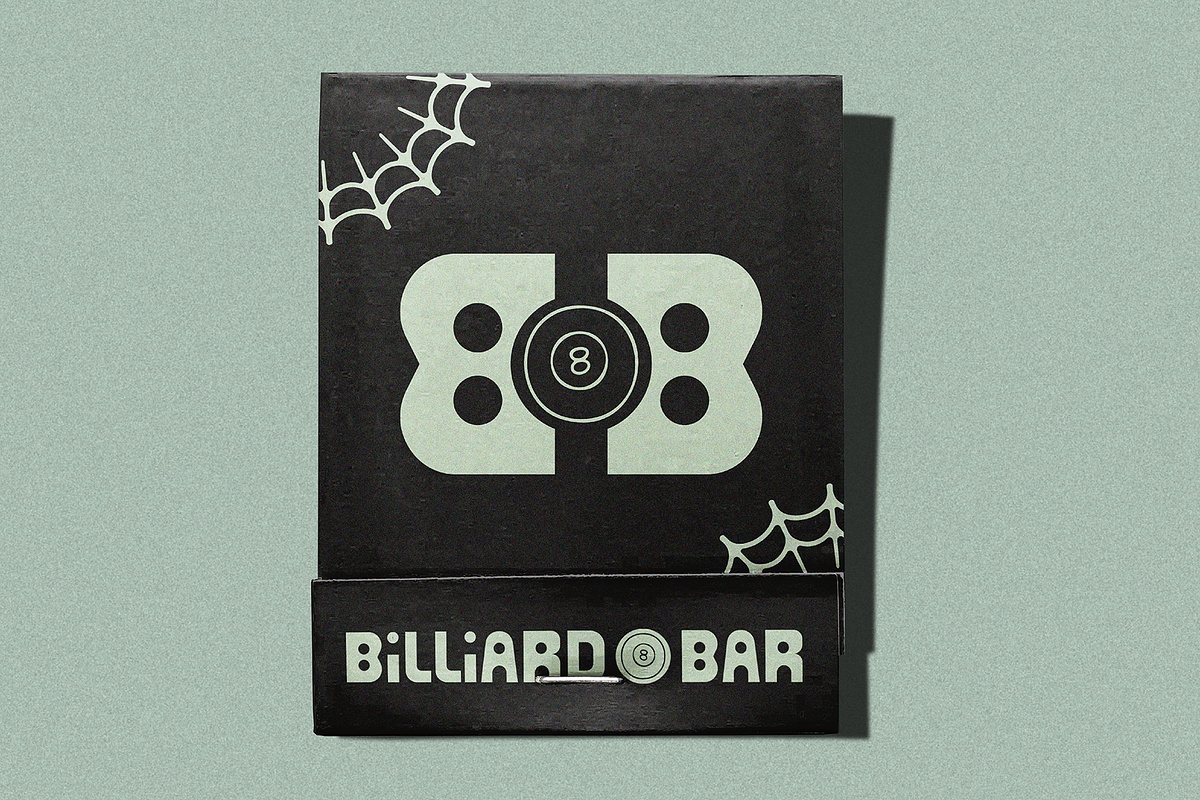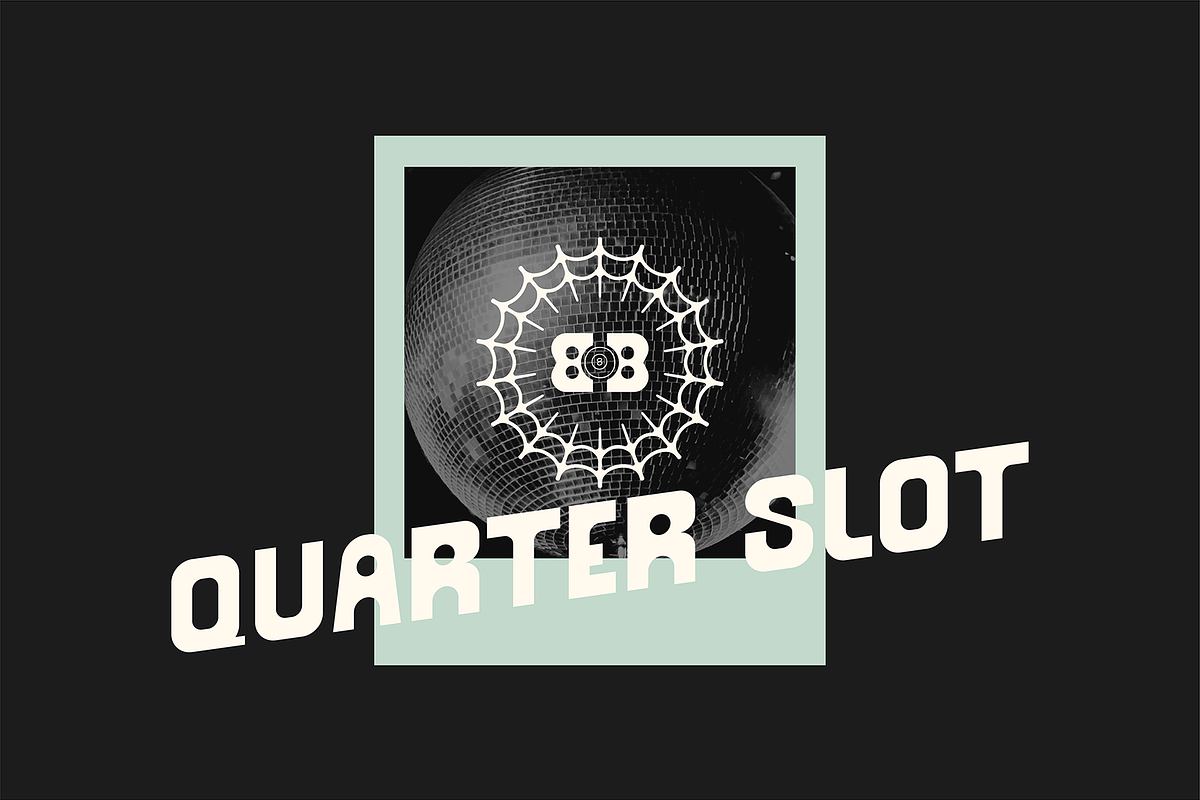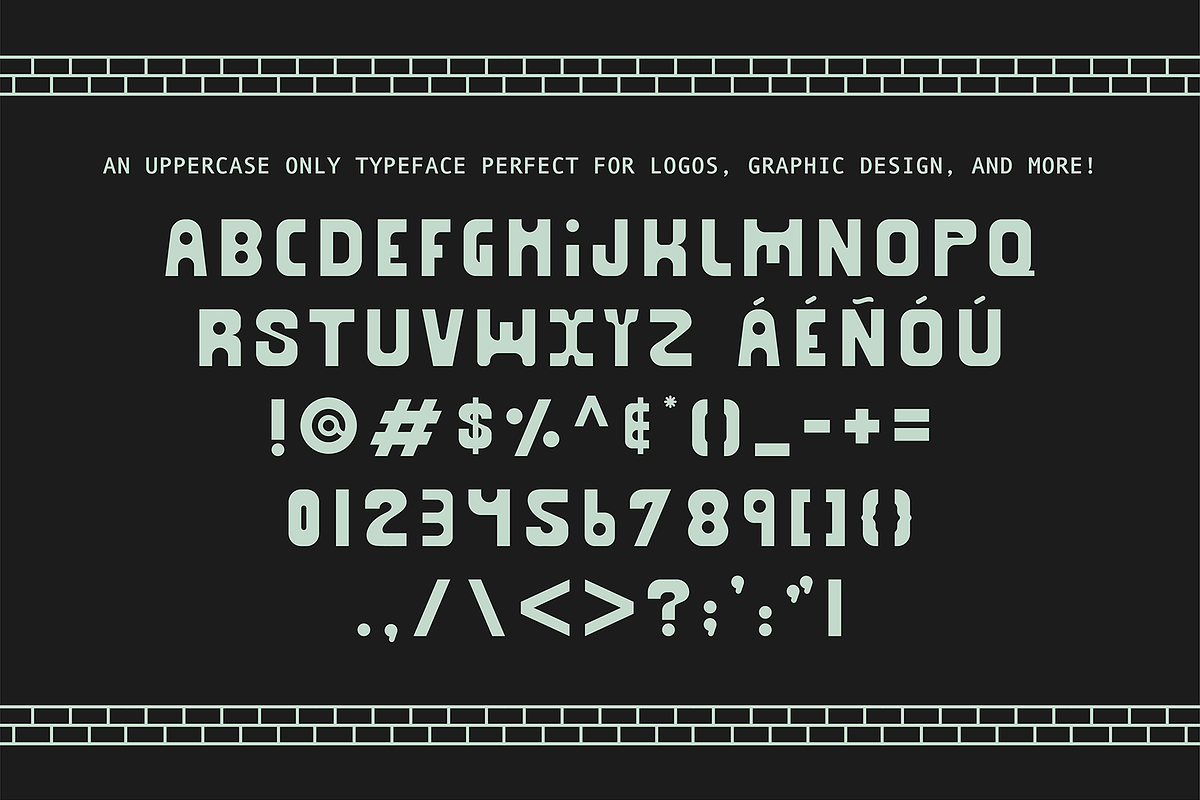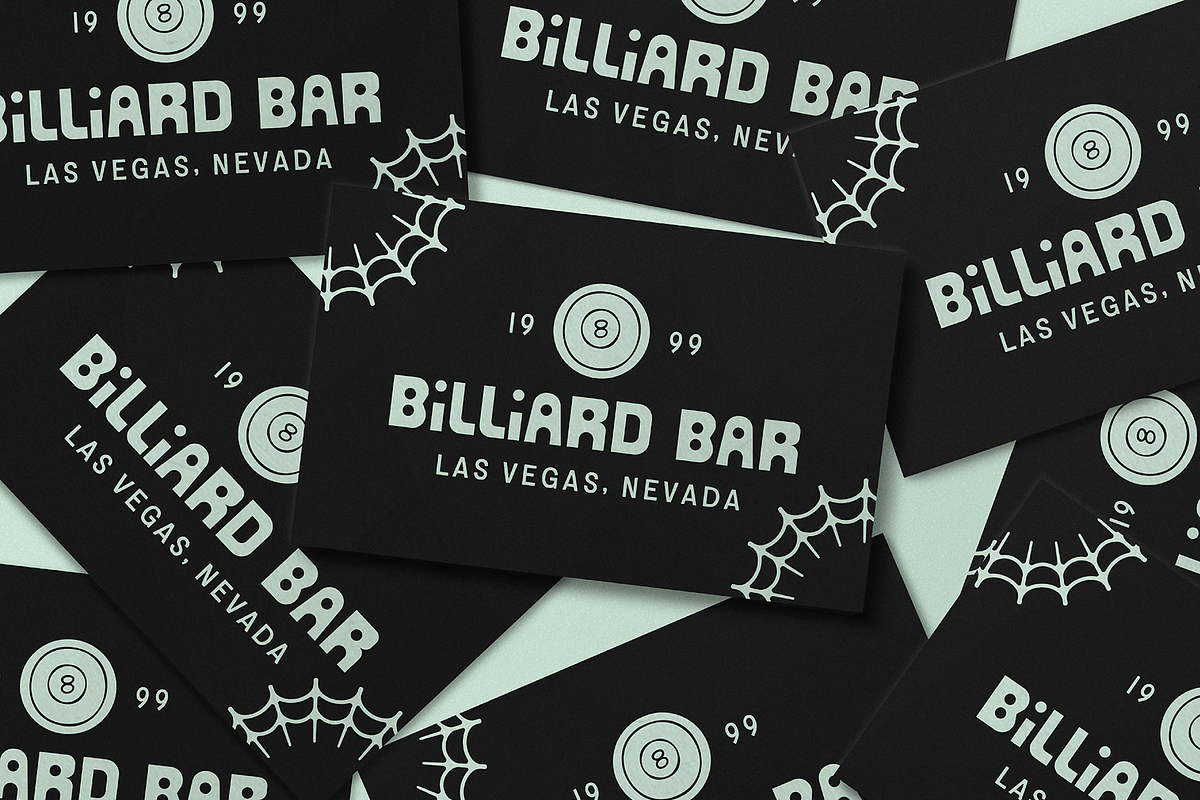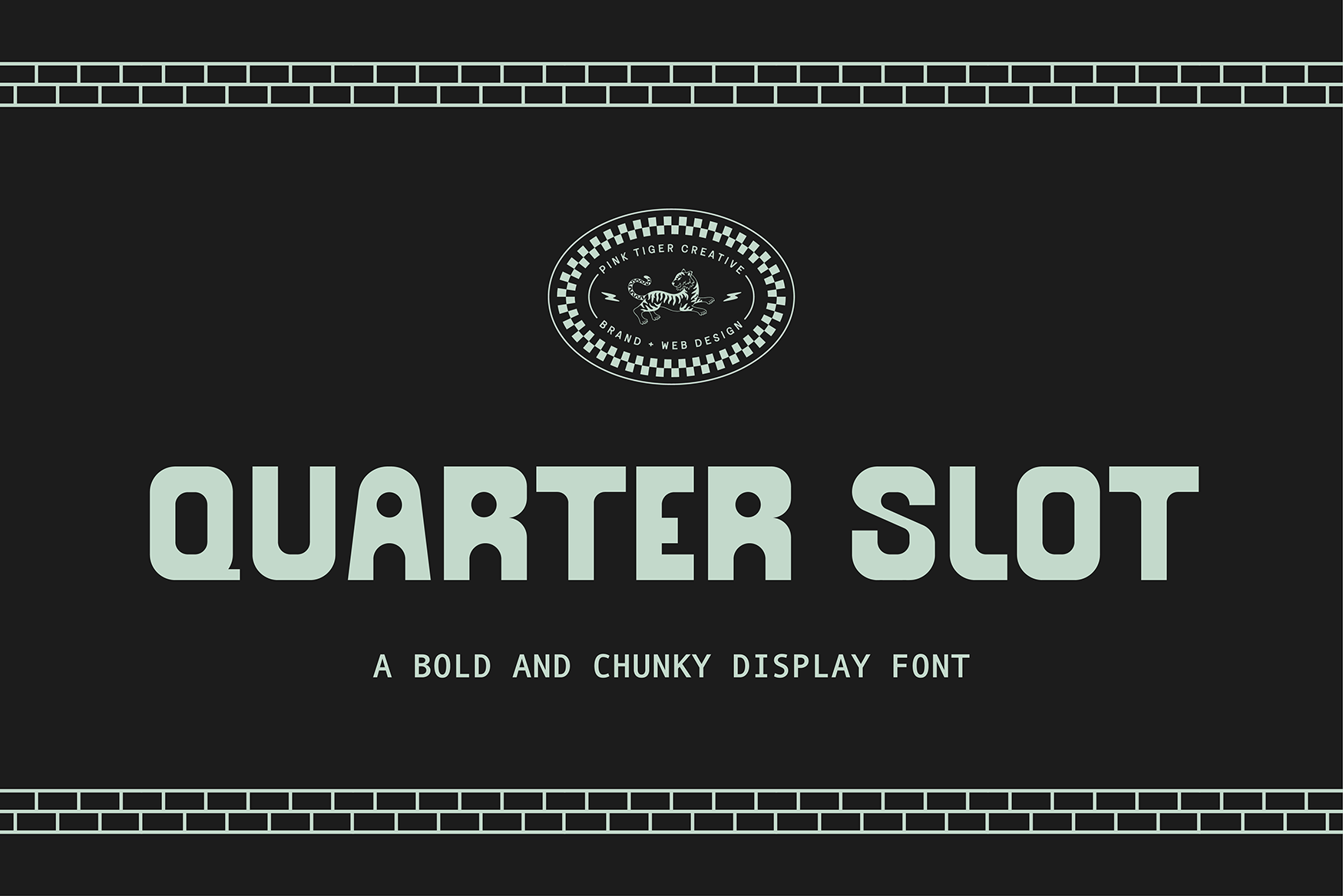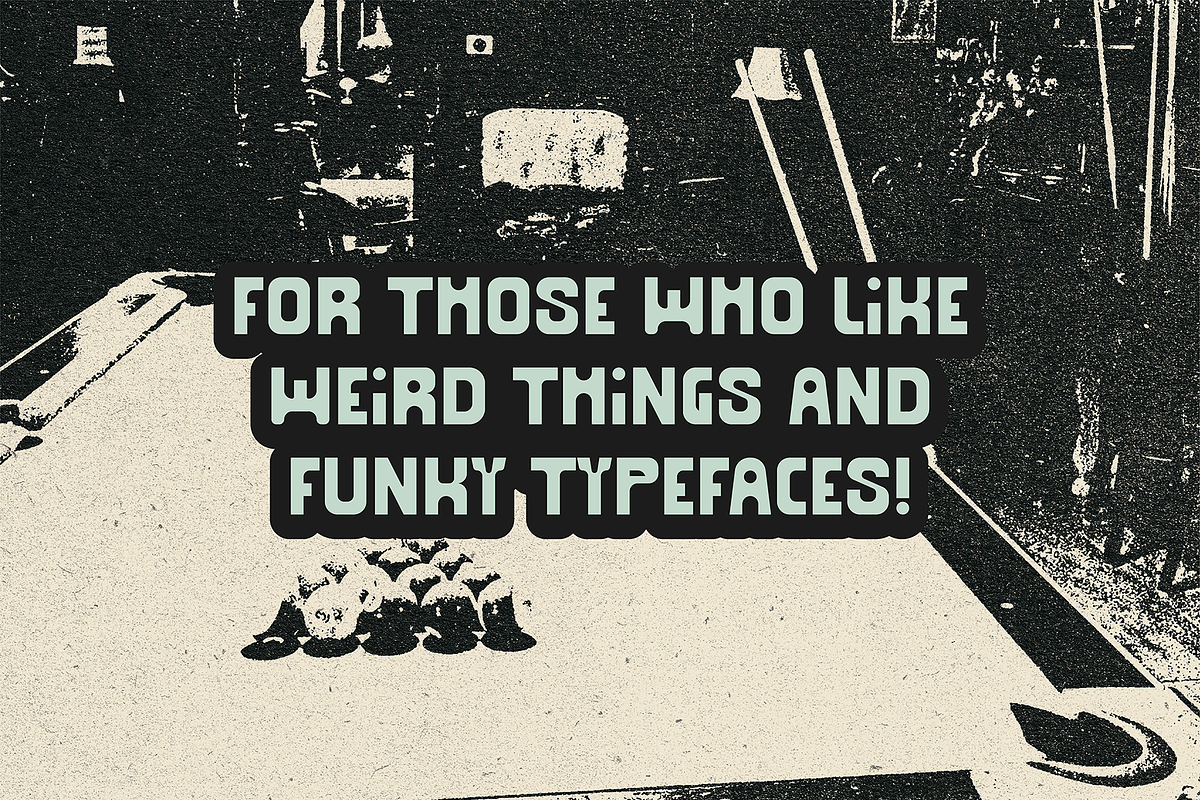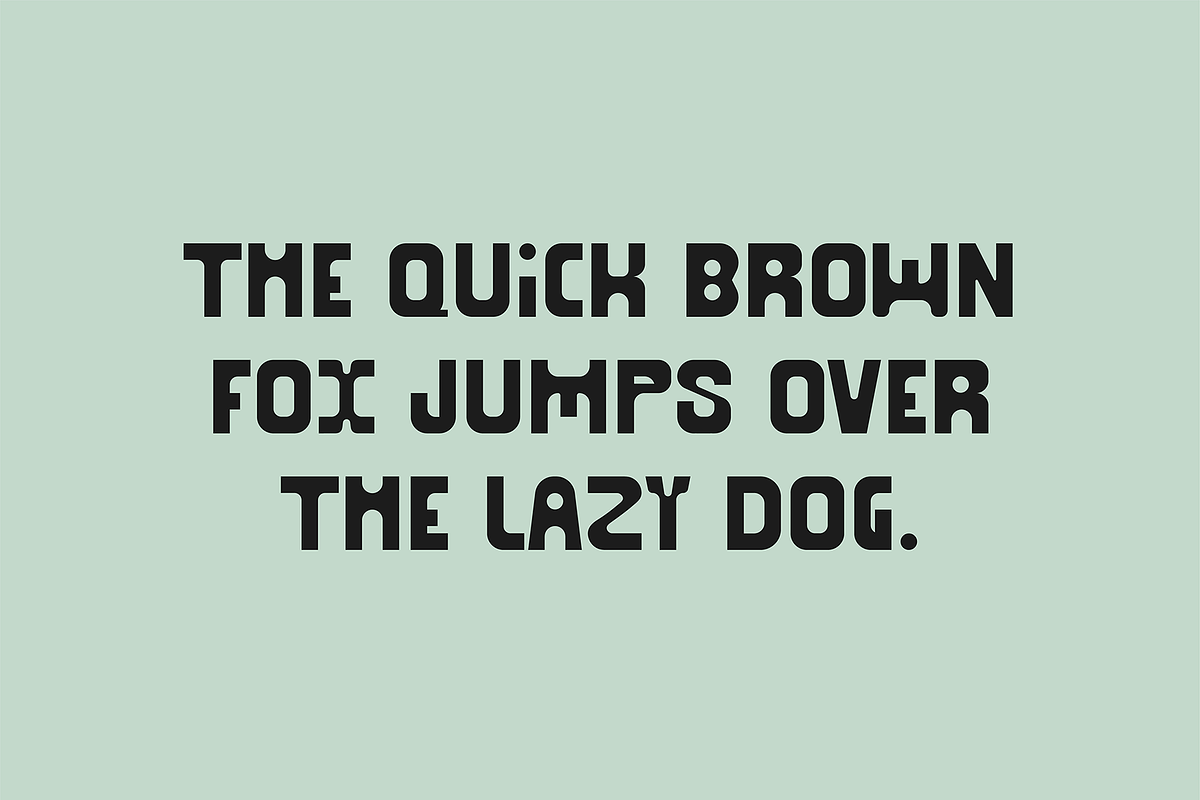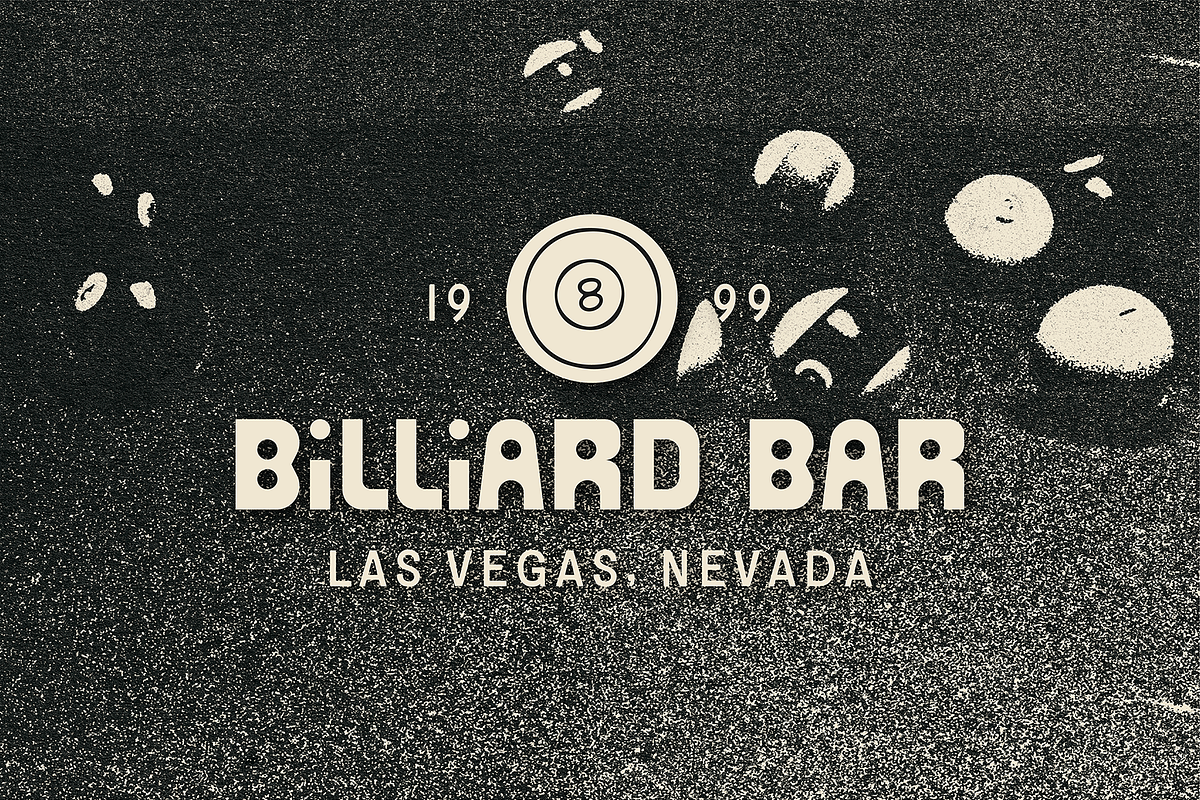
Quarter Slot Display Font
Quarter Slot is a bold and chunky display font for those who like weird and funky typefaces. Quarter Slot was inspired by retro and vintage type, with a modern and funky twist and is completely hand drawn and unique. Quarter Slot is perfect for crafting logos, branding, or any kind of graphic design project. Quarter Slot comes in uppercase only, it also contains numbers and punctuation.
This typeface was designed specifically as a display font, great for logos, posters, digital graphics, packaging, and more! Enjoy!